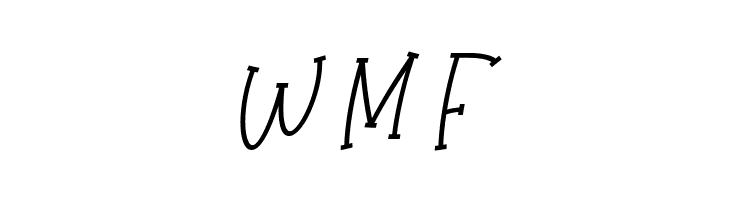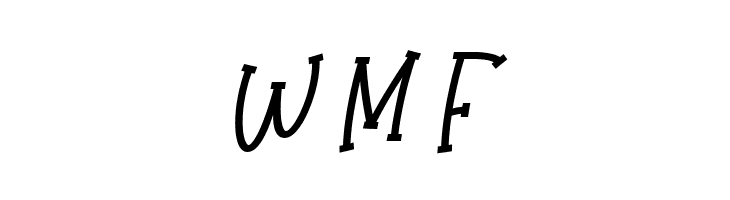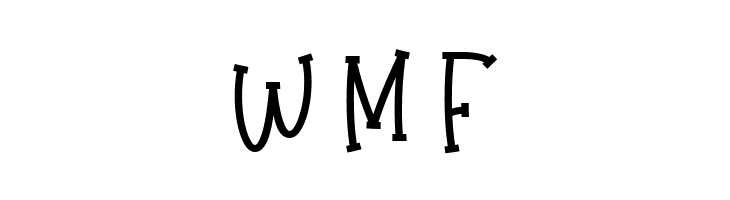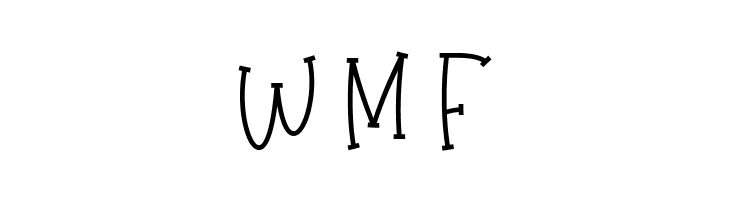
Olaugh Font
A playful, hand-drawn font with quirky serifs and uneven strokes.
Olaugh Italic Font
A playful, handwritten-style italic font with smooth, flowing strokes.
Olaugh Bold Font
A playful, whimsical font with uneven strokes and quirky serifs.
Olaugh Bold Italic Font
A bold, italicized, handwritten-style font with a playful and dynamic appearance.